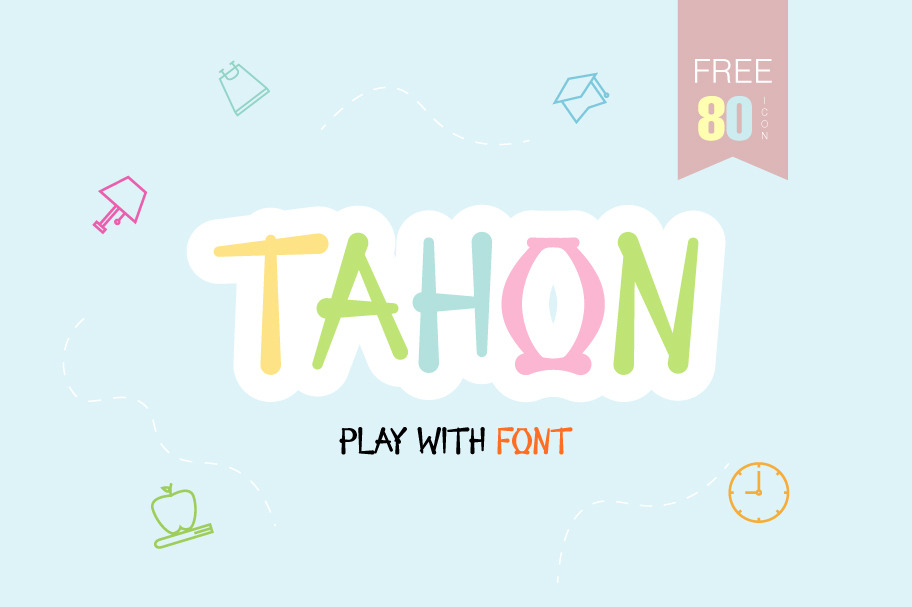
Tahon | Display Font
Tahon Font is best used for headings, logotype, quotes, apparel design, invitation, poster, flyers, greeting cards, packaging, book cover, printed quotes, cover album, movie, & etc Perfect if you need a dose of fun in your project. If you have any questions, before or after purchase, please feel free to get in touch.